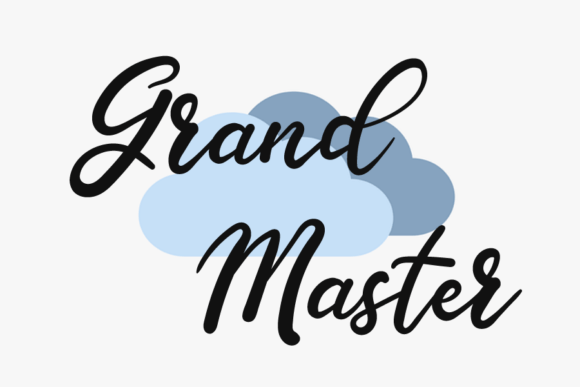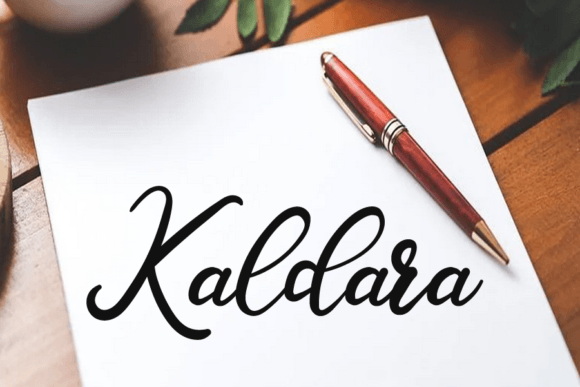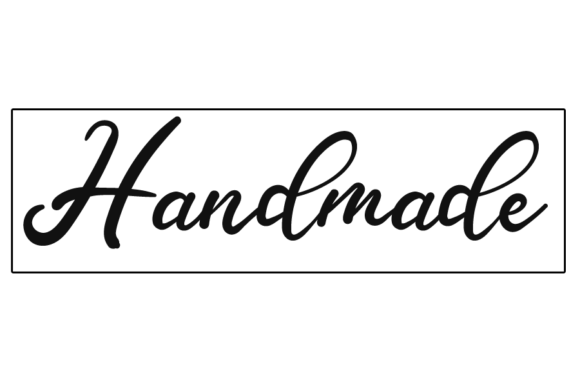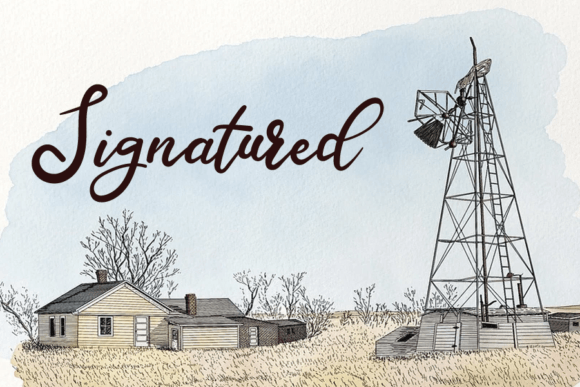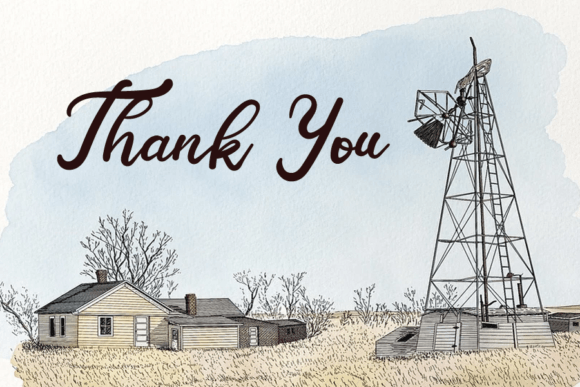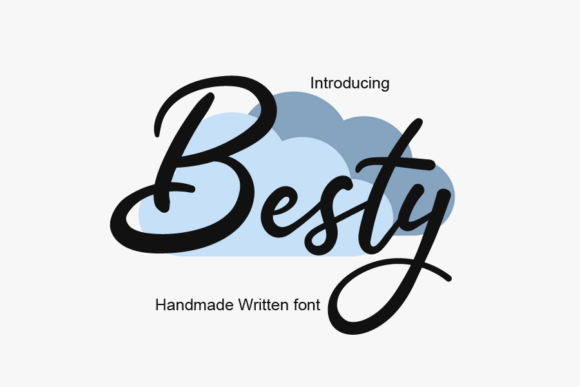
Introducing Besty Font: Elevate Your Designs with Elegance
In the world of design, fonts play a crucial role in conveying messages, expressing emotions, and creating a lasting impression. If you’re a designer, craftsperson, or simply someone who loves to dabble in creative projects, you’re likely always on the lookout for the perfect font to make your work stand out. That’s where Besty Font comes in – a gorgeous handwritten font that is sure to elevate your designs with its elegant and curvy lines.
The Beauty of Besty Font
Besty Font is a stunning example of handwritten typography, boasting smooth, flowing lines that exude elegance and sophistication. Its unique charm makes it perfect for a wide range of applications, from product packaging and branding projects to magazine covers, social media graphics, and wedding designs. Whether you’re looking to add a touch of whimsy or create a more formal, luxurious feel, Besty Font is the perfect choice.
What Makes Besty Font So Versatile?
One of the standout features of Besty Font is its incredible versatility. Its elegant, cursive script can be used to create a variety of effects, from bold and dramatic to soft and subtle. Here are just a few ways you can use Besty Font to take your designs to the next level:
- Product Packaging: Add a touch of luxury to your product packaging with Besty Font. Its elegant lines and sophisticated feel make it perfect for high-end brands and products.
- Branding Projects: Create a lasting impression with Besty Font. Its unique charm and character make it ideal for branding projects, logos, and business cards.
- Magazine Covers: Grab the attention of your readers with Besty Font. Its bold, eye-catching script is sure to make your magazine cover stand out on newsstands and online.
- Social Media: Elevate your social media graphics with Besty Font. Its elegant lines and sophisticated feel make it perfect for creating engaging, professional-looking graphics.
- Weddings: Make your wedding designs truly special with Besty Font. Its romantic, whimsical feel is perfect for wedding invitations, programs, and other stationery.
Why Choose Besty Font?
With so many fonts to choose from, why should you choose Besty Font? Here are just a few reasons why Besty Font stands out from the crowd:
- Unique Character: Besty Font has a unique character that sets it apart from other fonts. Its elegant lines and sophisticated feel make it perfect for designers who want to create something truly special.
- Elegant and Curvy Lines: Besty Font’s elegant and curvy lines make it perfect for creating beautiful, eye-catching designs.
- High-Quality: Besty Font is a high-quality font that is designed to deliver exceptional results. Its smooth lines and precise curves make it perfect for both print and digital applications.
Tips for Using Besty Font
To get the most out of Besty Font, here are a few tips to keep in mind:
- Experiment with Sizes: Besty Font looks great in a variety of sizes, from large and bold to small and subtle. Experiment with different sizes to find the perfect fit for your design.
- Pair with Other Fonts: Besty Font pairs beautifully with other fonts, creating a stunning contrast that adds depth and interest to your design.
- Use on a Variety of Backgrounds: Besty Font looks great on a variety of backgrounds, from light and bright to dark and bold. Experiment with different backgrounds to find the perfect fit for your design.
| Font Name | Besty Font |
Besty Font is a gorgeous handwritten font that is sure to elevate your designs with its elegant and curvy lines. Its unique charm and character make it perfect for a wide range of applications, from product packaging and branding projects to magazine covers, social media graphics, and wedding designs. With its high-quality design and incredible versatility, Besty Font is a must-have for designers and craftspersons who want to create something truly special.